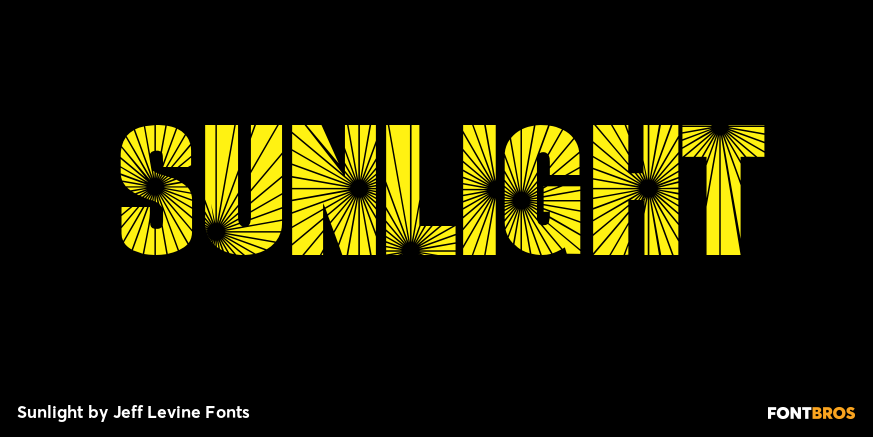
Sunlight
Sunlight JNL takes the classic wood type from Jeff Levine's Twelve Oaks JNL and shatters it with bursts of light for a novelty effect. Limited to a very basic character set, it's best used for short words and phrases in headlines.